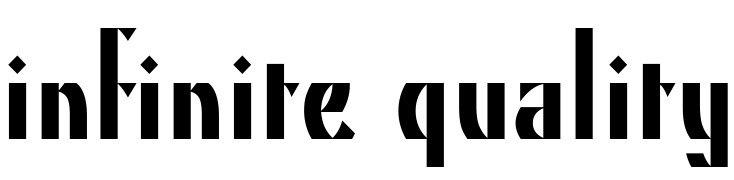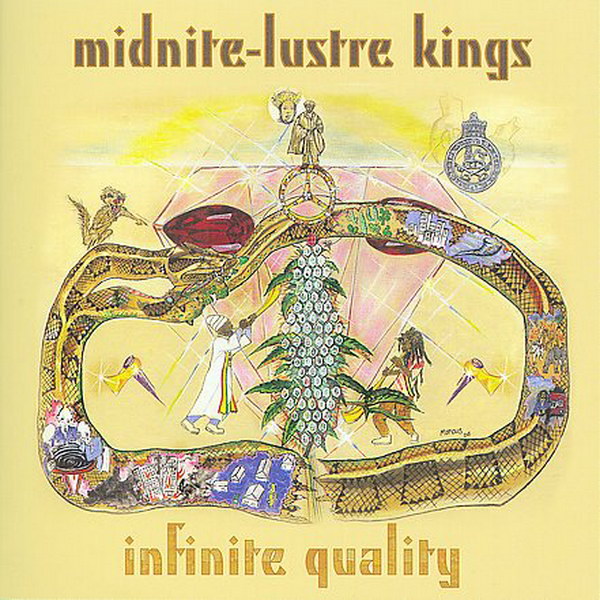
Infinite Quality Font
BandInfinite Quality with Lustre Kings is an album by the reggae band Midnite, released in 2007. It features 12 tracks with powerful lyrics and a mix of roots reggae and dub rhythms.
It is likely that the font utilized on the cover is Kino, which was designed by Martin Dovey in 1930 for the Monotype Corporation. This font is commercially available and further details can be found here.